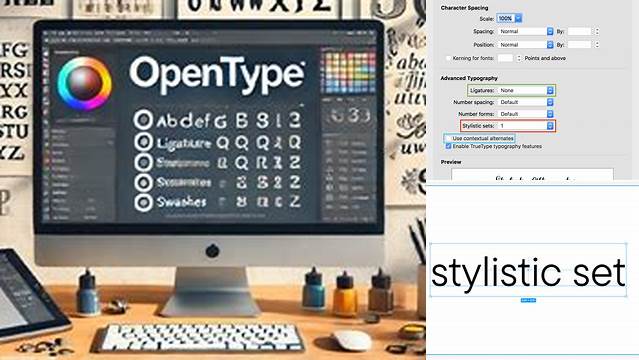
Using OpenType Fonts In Word: A Complete Guide
Hey everyone! Ever wondered how to use OpenType fonts in Word? Well, you're in luck because today we're diving deep into everything you need to know. OpenType fonts are super cool because they offer a ton of extra features and characters that regular fonts don't. Think of them as the superheroes of the font world! They let you create some really slick-looking documents. I'll walk you through all the steps, from understanding what OpenType fonts are to how to get them working in Word and even some tips on making your documents look amazing. So, grab a coffee, sit back, and let's get started with this guide on how to use OpenType fonts in Word!
Understanding OpenType Fonts: What They Are and Why They Matter
Alright, before we jump into how to use OpenType fonts in Word, let's get the basics down. OpenType fonts, often abbreviated as OTF, are a type of font developed by Adobe and Microsoft. They are designed to replace the older TrueType fonts. What's the big deal, you ask? Well, OpenType fonts are way more versatile. One of the coolest things about OpenType fonts is that they can contain thousands of glyphs (individual characters), including ligatures, swashes, and alternative characters. This means you have a lot more creative control over your typography, guys! For example, some fonts have special characters you can use to make your text look like it was handwritten, or fonts that support advanced features like stylistic sets. It’s all about giving you more options to make your documents pop. OpenType fonts also have better cross-platform support, which means they work seamlessly on both Windows and macOS. This is awesome if you’re collaborating with others who use different operating systems. Plus, OpenType fonts can support a wider range of languages because they can contain glyphs for multiple character sets. When it comes to how to use OpenType fonts in Word, knowing their capabilities really helps you take advantage of all the features.
Think of it this way: a regular font is like a basic set of crayons, while an OpenType font is like a giant box of art supplies with special markers, glitter, and all sorts of cool stuff. Knowing how to use OpenType fonts in Word lets you use all these extra goodies to make your work look professional and stylish.
Advantages of Using OpenType Fonts in Word
Now that you know the basics, let’s talk about the advantages. First off, OpenType fonts are generally more flexible. As mentioned earlier, they can contain thousands of glyphs, which gives you access to things like ligatures. Ligatures are special characters where two or more letters are combined into one, such as “fi” or “fl.” This can make your text look smoother and more elegant. Another big plus is the stylistic sets. These are variations of the same font designed for different looks. For example, you might have a version of a font with a more rounded appearance or a more condensed design. These stylistic sets are a fantastic tool when it comes to how to use OpenType fonts in Word. Also, OpenType fonts often include small caps, fractions, and other special characters. Small caps are capital letters that are slightly smaller than regular capitals, and they are great for headings or titles. Fractions can look a lot cleaner when they are designed into the font. Moreover, OpenType fonts are designed to work well across different platforms. This means your documents will look the same whether they’re viewed on a Mac or a PC, eliminating any formatting headaches. Furthermore, OpenType fonts support a wide range of languages. This means you're not limited to the standard English character set. If you're working on documents in multiple languages or if you need to include special characters or symbols, OpenType fonts have you covered. Mastering how to use OpenType fonts in Word means you will have a toolkit ready to handle all of these features.
Differences Between OpenType and Other Font Types
When you are figuring out how to use OpenType fonts in Word, it’s essential to know how they compare to other font types. There are a few key differences. TrueType fonts, the predecessor to OpenType, are limited in the number of glyphs they can contain. They generally don't have all the features like ligatures and stylistic sets. PostScript fonts, another older type, have been largely superseded by OpenType fonts. OpenType is more advanced and often supports more features. The primary distinction is in the technology. OpenType fonts use a more modern technology that allows for a wider range of characters, better quality, and cross-platform compatibility. Another significant difference is the availability of features. OpenType fonts can include features like contextual alternates, which automatically change the appearance of a character depending on the surrounding letters. They can also support old-style figures, which have varying heights and are designed to blend better with the lowercase letters of the text. Understanding these differences helps you make informed decisions about which font to use for your projects. Knowing about how to use OpenType fonts in Word provides you the flexibility to design unique documents.